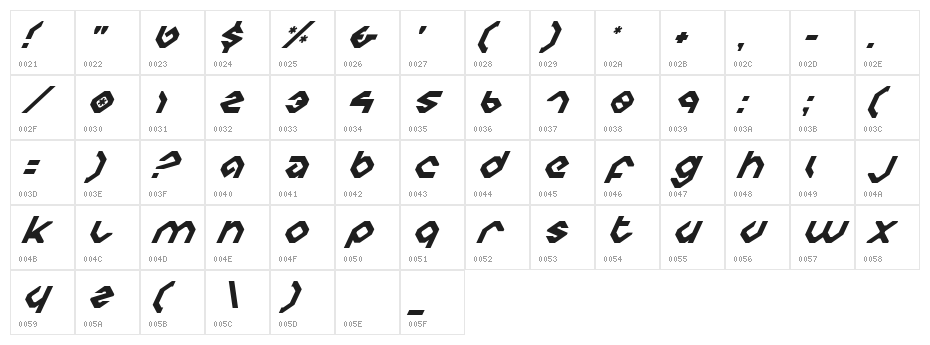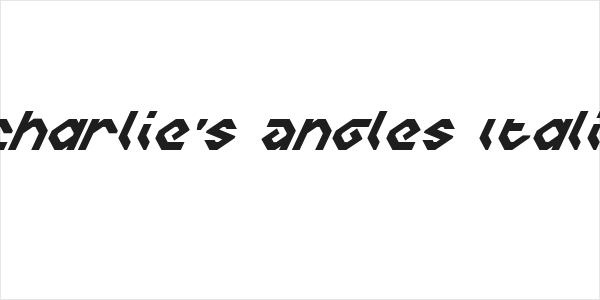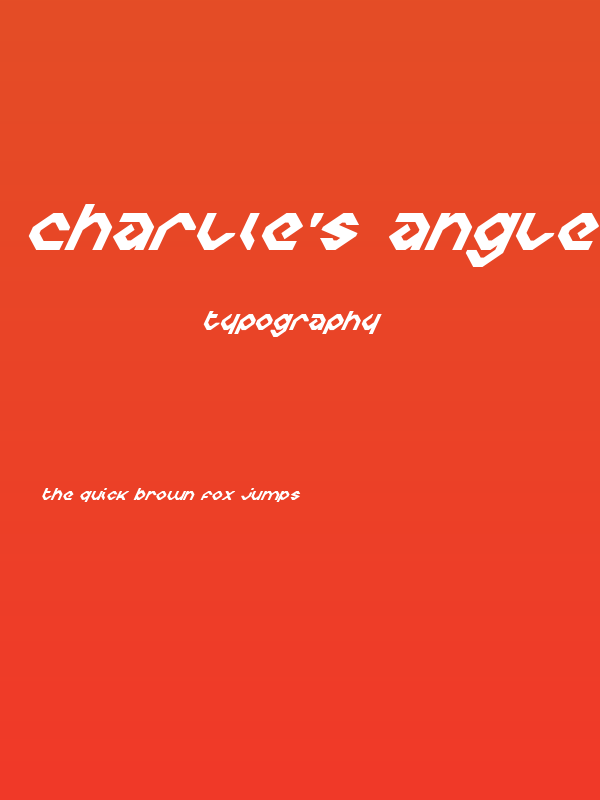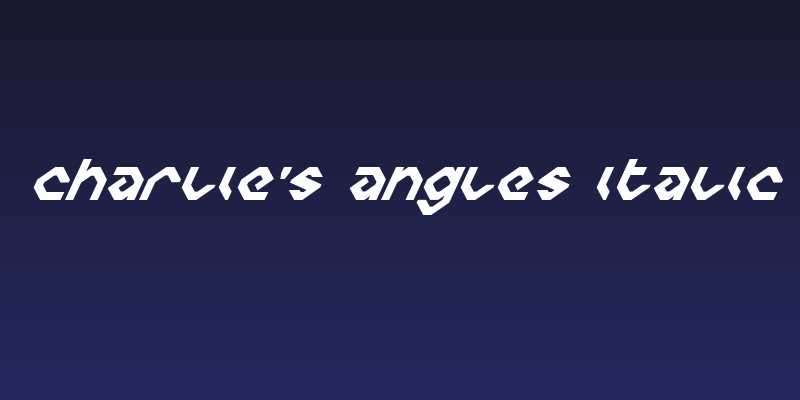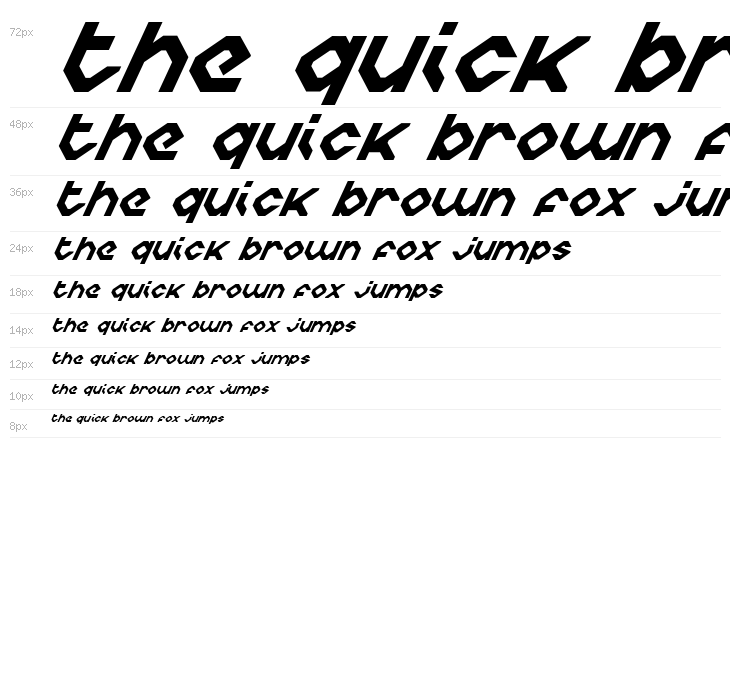
Charlie's Angles Italic Font
Charlie's Angles Italic Description
This font features a bold, angular design with a distinct italic slant, giving it a dynamic and edgy appearance. The characters are constructed with sharp, geometric lines that create a sense of movement and energy. The uppercase and lowercase letters maintain a consistent style, with the lowercase mirroring the angularity of the uppercase. Numbers and special characters follow the same design principles, ensuring uniformity across all glyphs. The font's unique style makes it stand out, ideal for projects that require a modern and unconventional look.